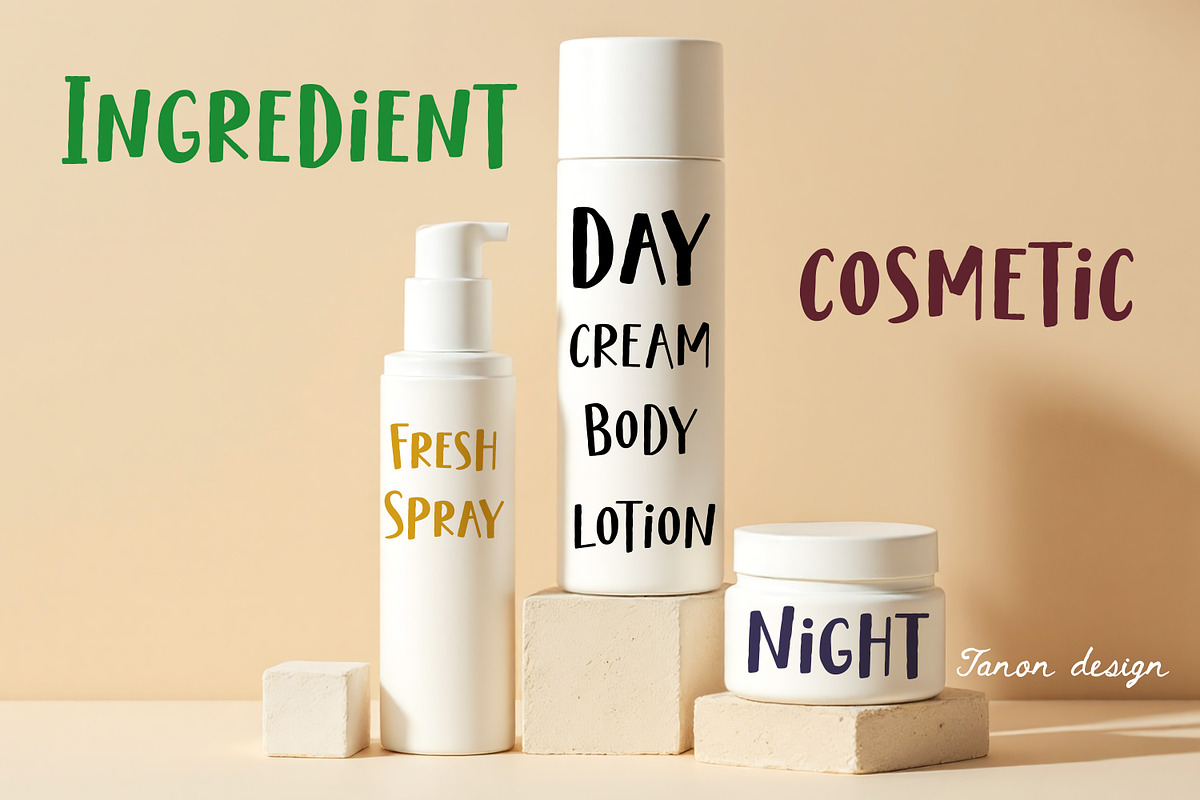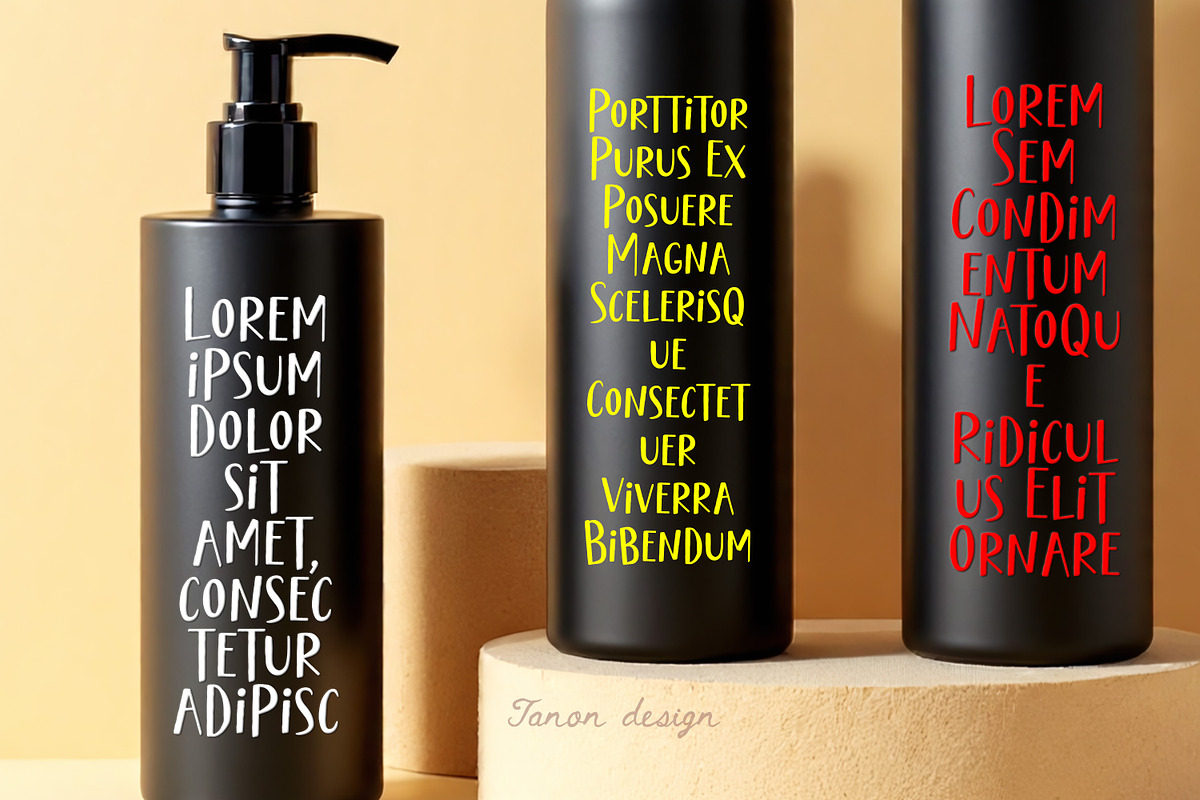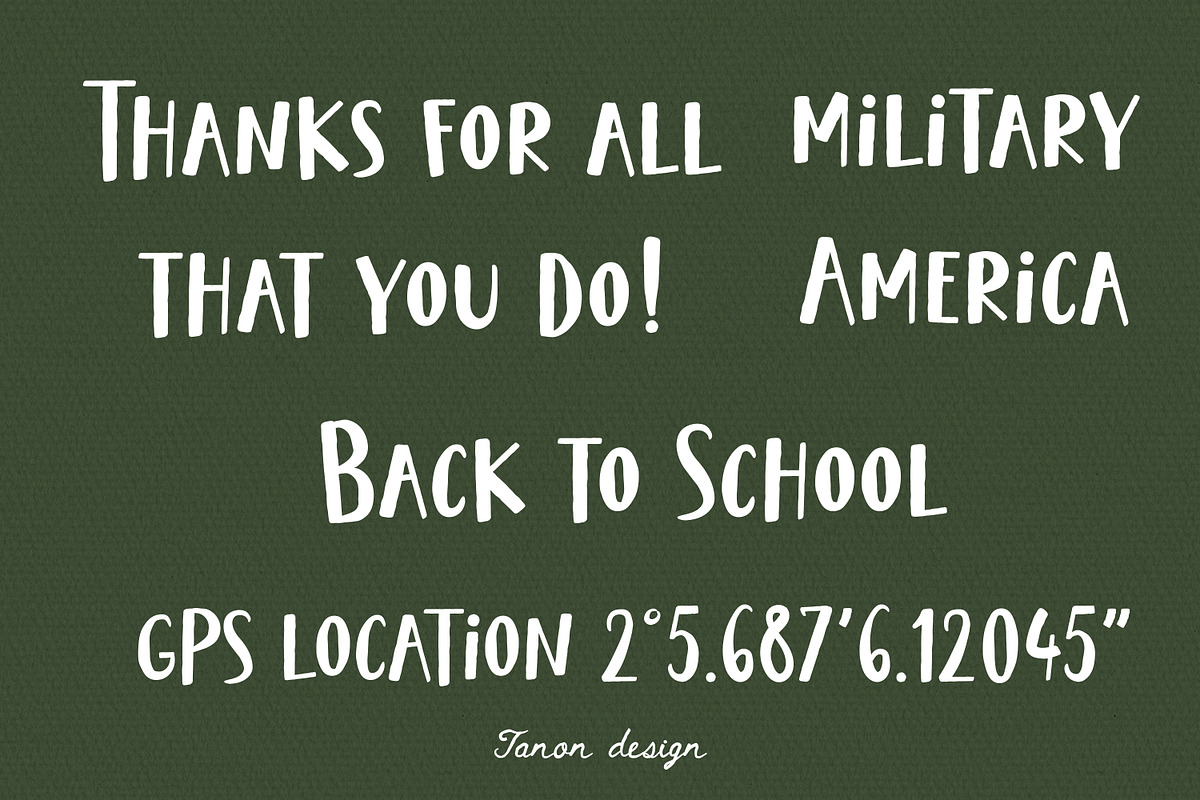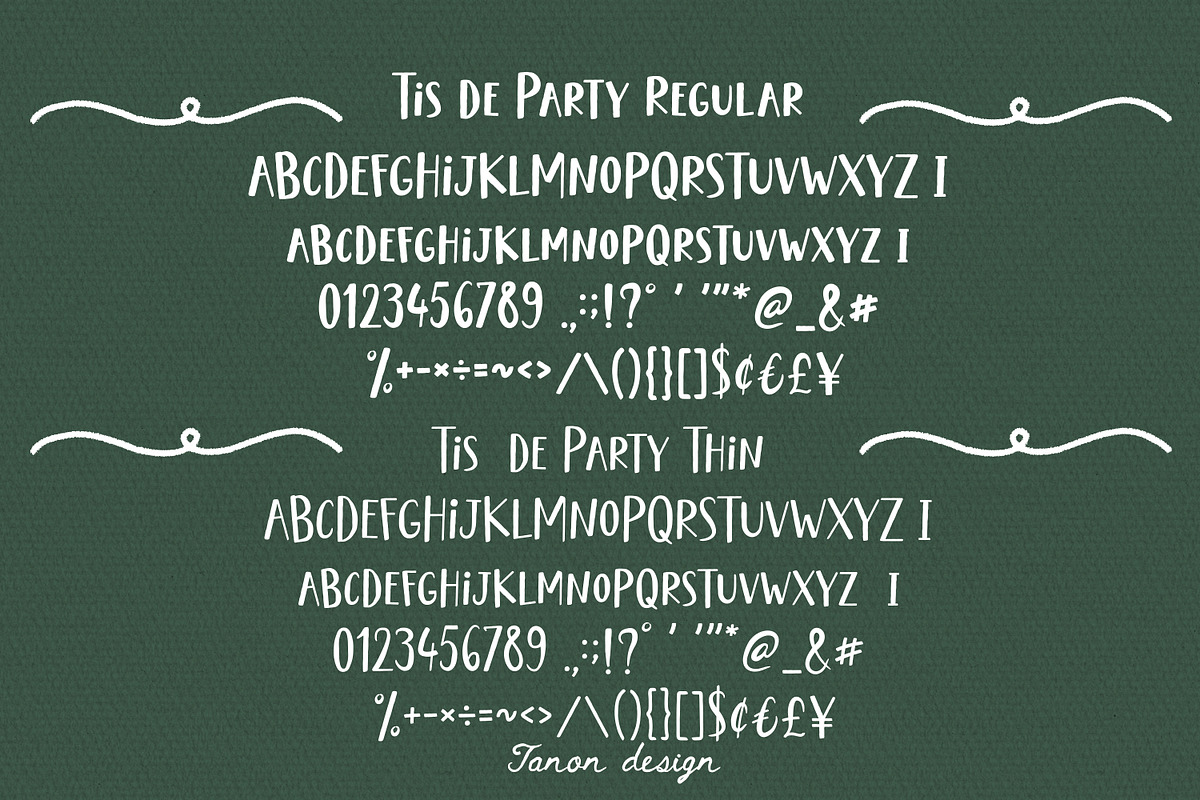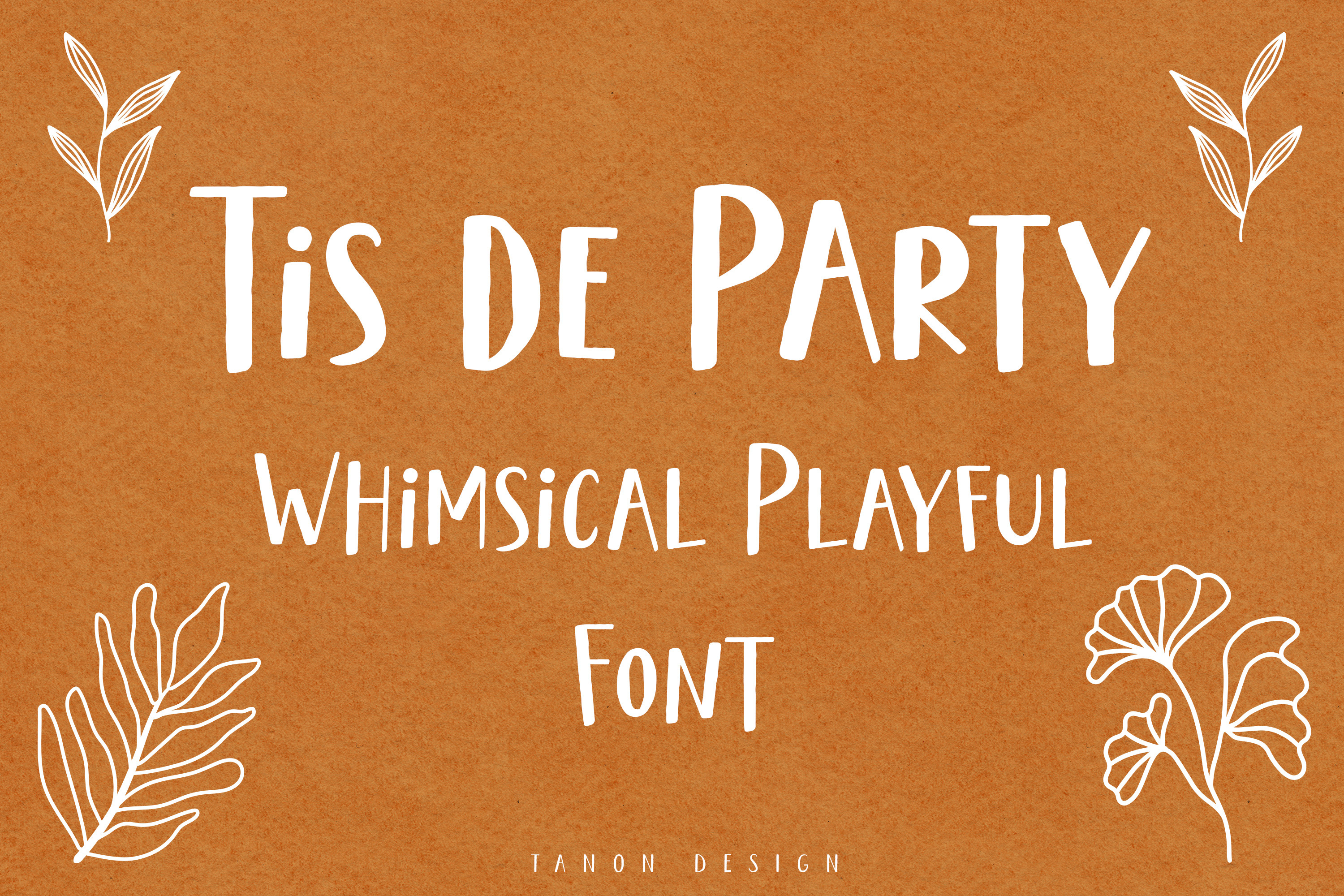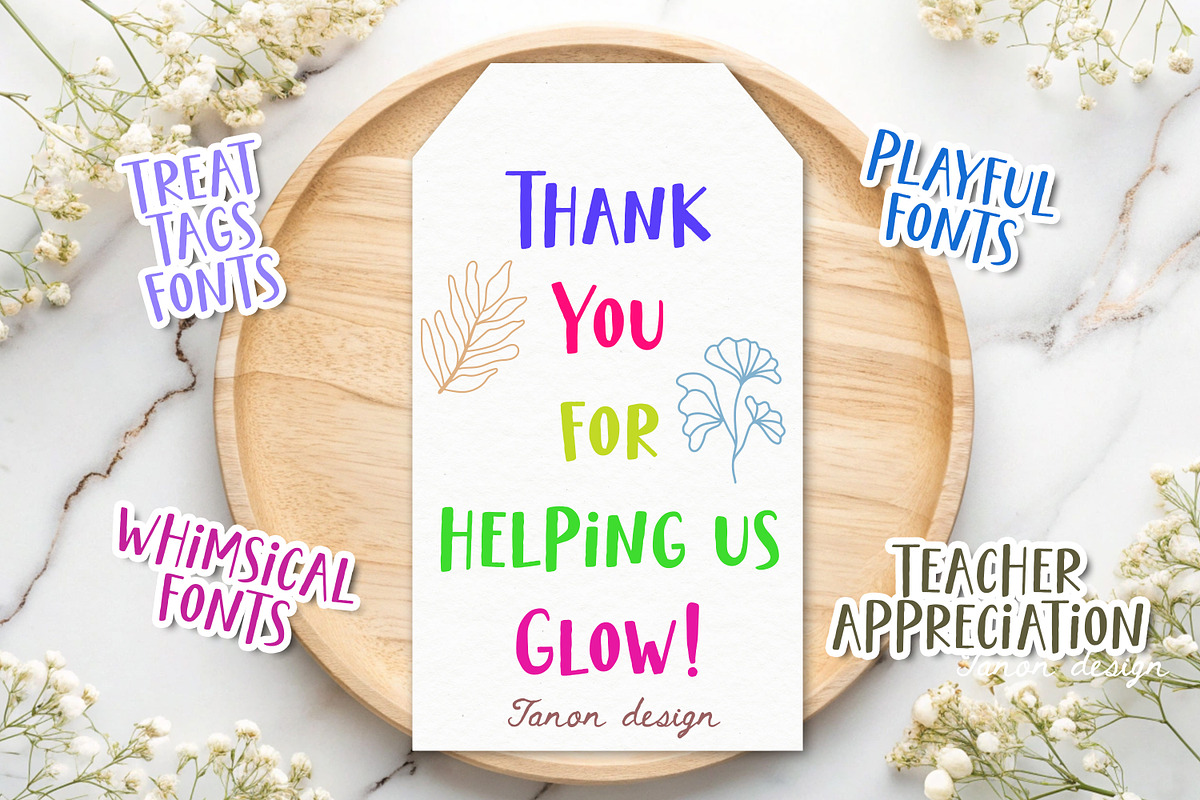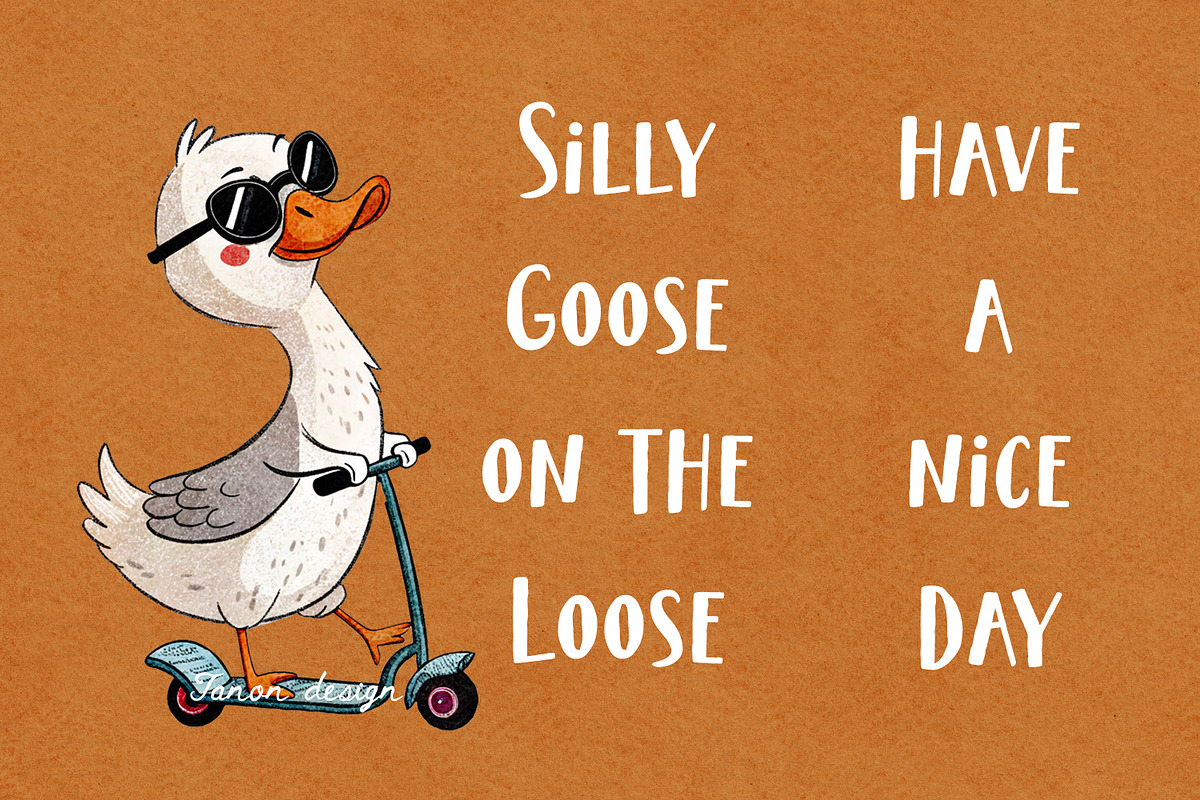
Tis de Party Whimsical Playful fonts
Tis de Party Whimsical playful fonts Collection. Handwritten fonts.
It will look fantastic on all your project designs, including t-shirt designs, mug designs, digital designs, crafts, cards, and any projects!